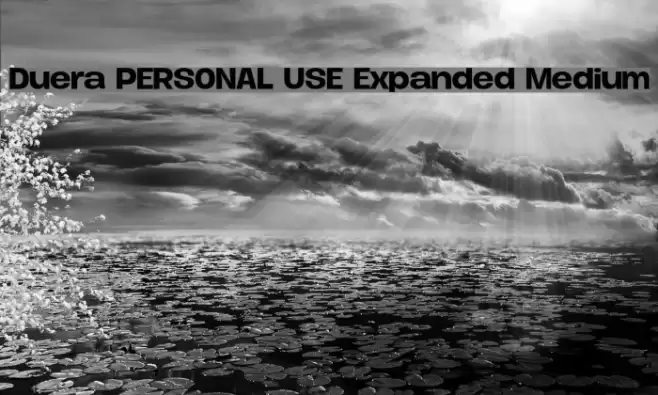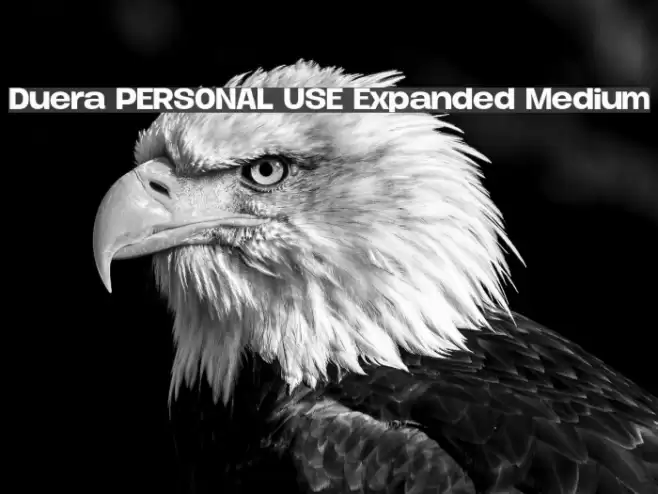
Duera PERSONAL USE Expanded Medium Font
Duera PERSONAL USE Expanded Medium Description
This font features a bold and modern design with expanded letterforms that give it a strong presence. The characters are uniformly thick, providing a consistent and powerful look across both uppercase and lowercase letters. The numerals and special characters maintain this robust style, ensuring readability and impact. The overall design is clean and straightforward, making it suitable for various applications where clarity and emphasis are required. Its expanded width allows for a more open and airy feel, which can be particularly effective in large-scale designs.
A bold, modern font with expanded letterforms and consistent thickness from Uncategorized fonts.
- Proposed Projects: Ideal for branding, advertising, headlines, and signage where a strong, impactful presence is needed.
- Use Case: Headlines, Logos, Advertising